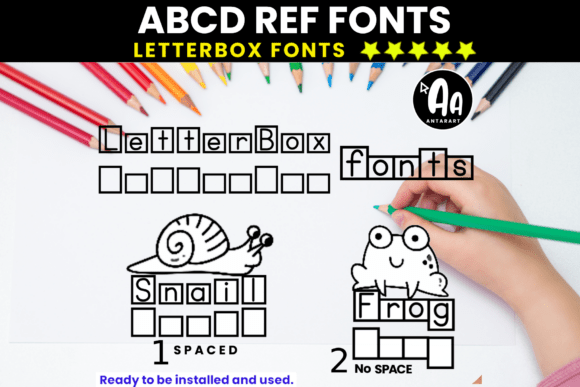
Unlocking the Power of Consistent Handwriting: 5 Advantages of the Abcd Ref Letterbox Font
As a designer, I’ve had my fair share of moments where the perfect font seemed elusive. I recall working on a project for a local school, tasked with creating engaging worksheets for early learners. The challenge? Finding a font that would help them master proper handwriting alignment. That’s when I stumbled upon the Abcd Ref Letterbox Font, and it revolutionized my design process. In this article, I’ll share with you the 5 advantages of this incredible font and how it can elevate your handwriting practice worksheets.
A Personal Connection: How Letterbox Font Transformed My Design Process
Working on that school project was a turning point for me. I realized how crucial it was to make learning fun and accessible for young minds. The Abcd Ref Letterbox Font became an indispensable tool in my design arsenal, allowing me to create engaging and effective worksheets. Its unique letterbox method caught my attention, and I was eager to explore its features and benefits.
5 Advantages of the Abcd Ref Letterbox Font
• Supports consistent letter sizing – Helps students learn uniform letter height and spacing. ✨
• Improves handwriting alignment – Great for teaching line awareness. ✅
• A visual guide for beginners – Clear top, middle, and bottom zones.
• Perfect for early writers – Especially effective for Pre-K to Grade 2.
• Print-ready & classroom friendly – Easy to use in worksheets and flashcards.
• ✨ The font’s unique letterbox design makes it easy for students to understand letter alignment and spacing.
• ✅ It’s perfect for creating engaging worksheets and flashcards for early learners.
• 💡 The font is highly versatile and can be used for various handwriting practice activities.
• ⚠️ Some users might find the font’s letterbox design too rigid, limiting creative freedom.
• 🤔 The font may not be suitable for older students or those with more advanced handwriting needs.
A Brief Backstory: The Inspiration Behind Abcd Ref Letterbox Font
The Abcd Ref Letterbox Font was inspired by the D’Nealian handwriting method, which emphasizes letter alignment and spacing. The font’s creator aimed to develop a visual guide for early learners, helping them master proper handwriting alignment and letter formation.
Font Name Abcd Ref Letterbox Font
Author AntarArt
What is the Abcd Ref Letterbox Font? The Abcd Ref Letterbox Font is a handwriting font designed to help early learners master proper handwriting alignment using the letterbox method.
Is the Abcd Ref Letterbox Font suitable for older students? While the font is designed for early learners, it can still be used for students of all ages who need to improve their handwriting alignment and letter formation.